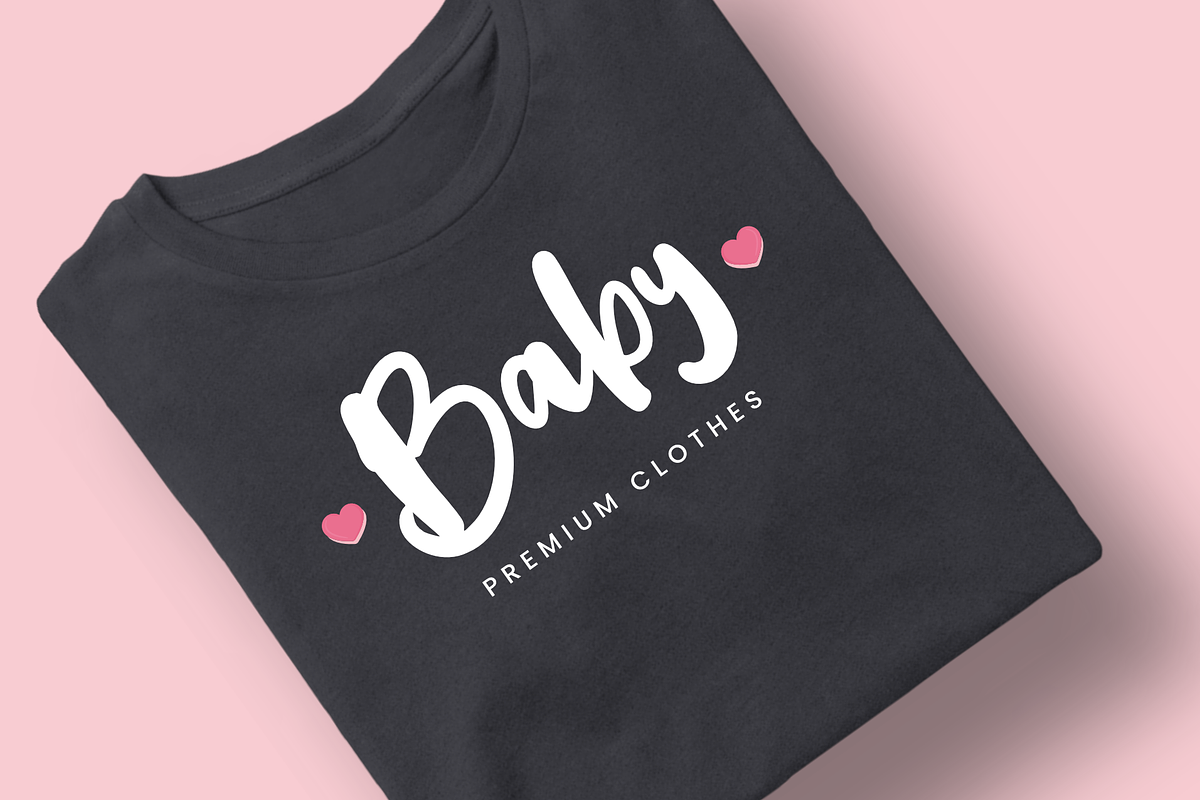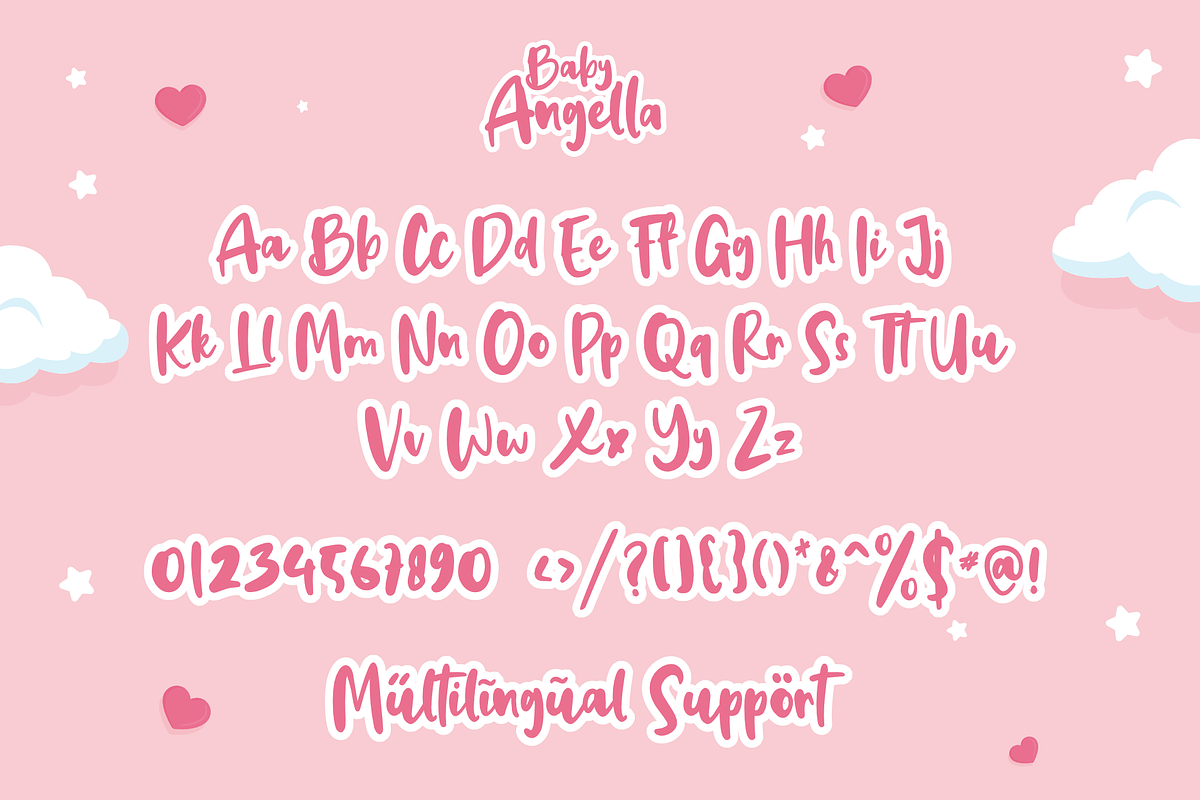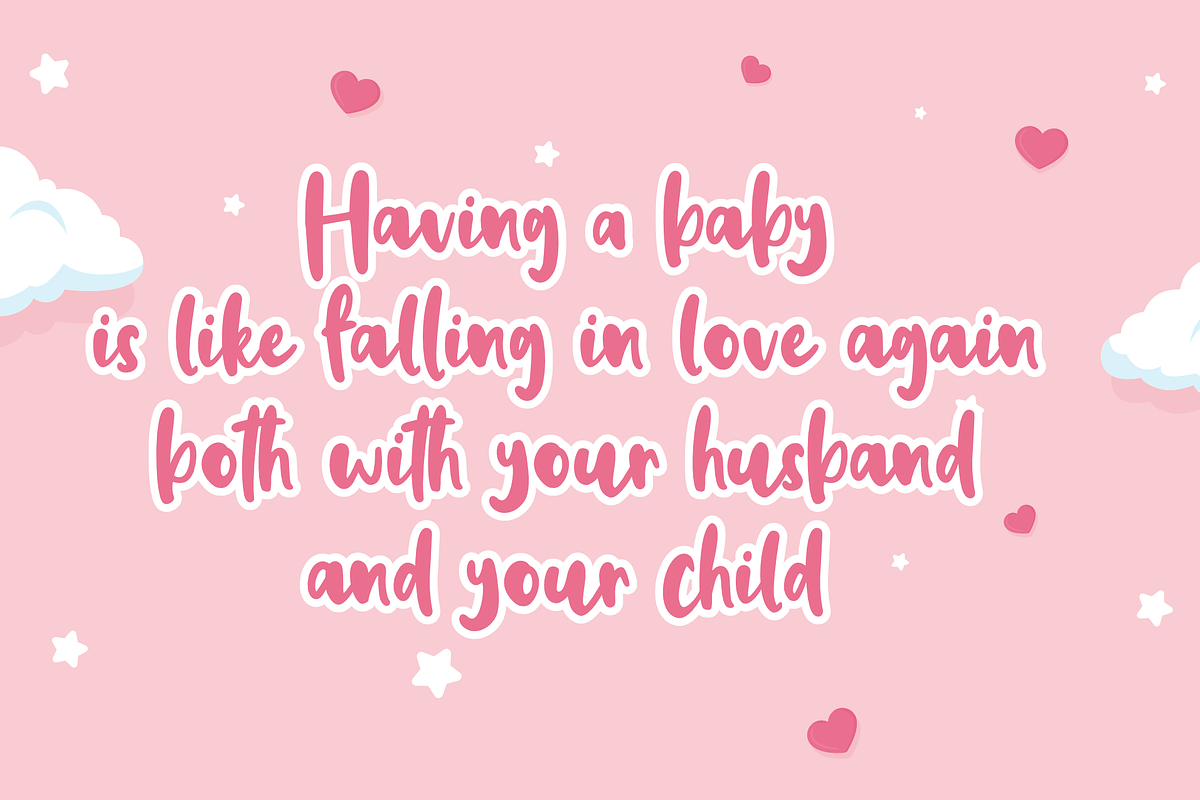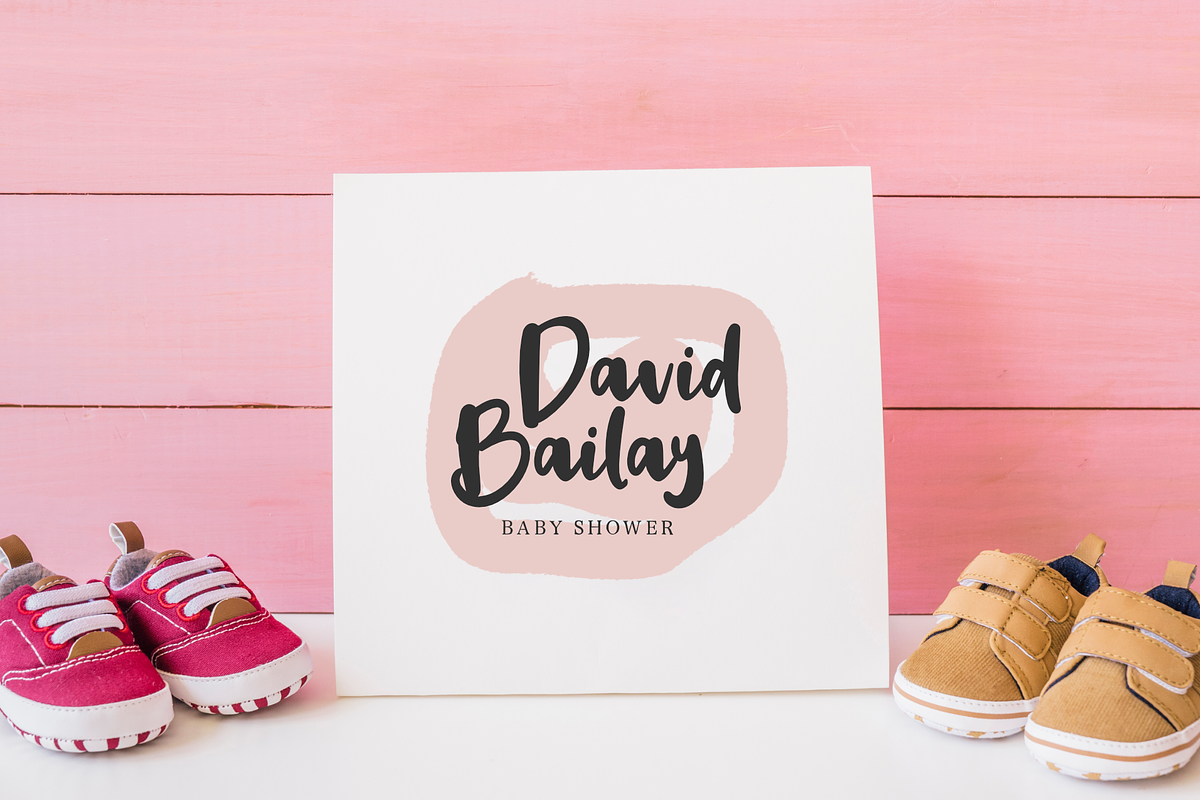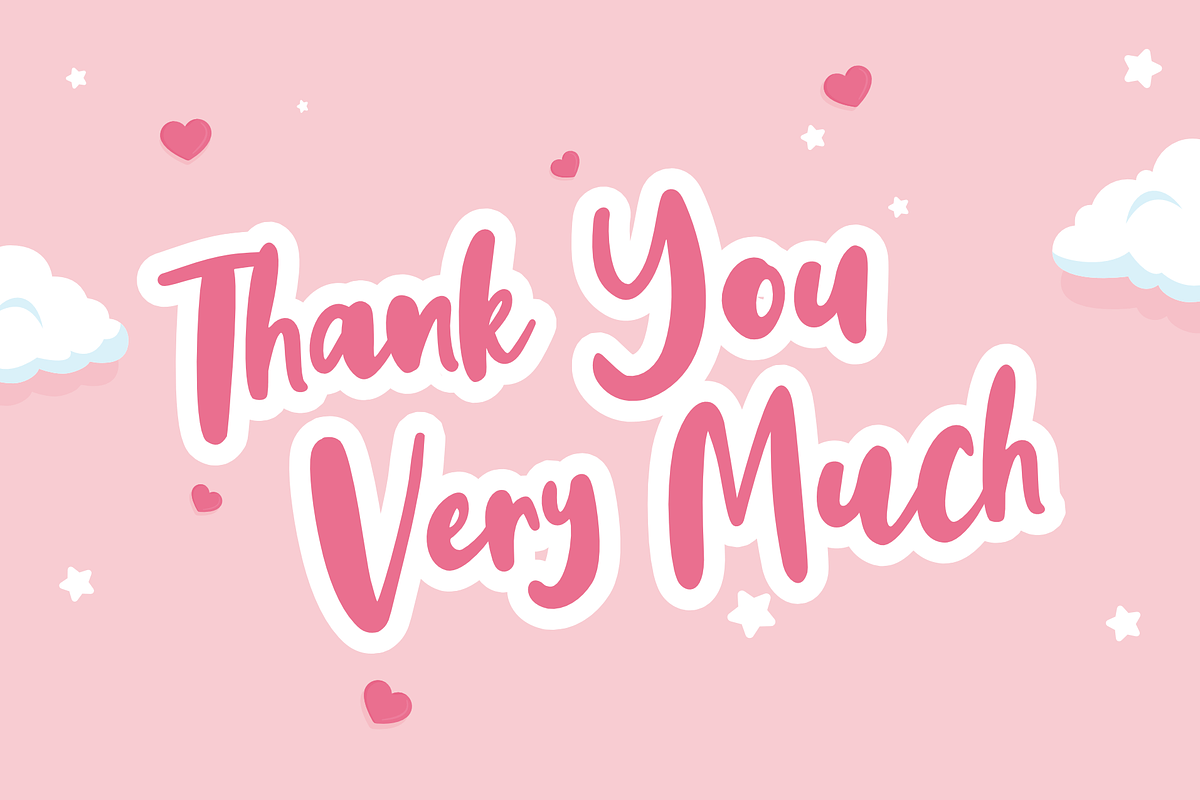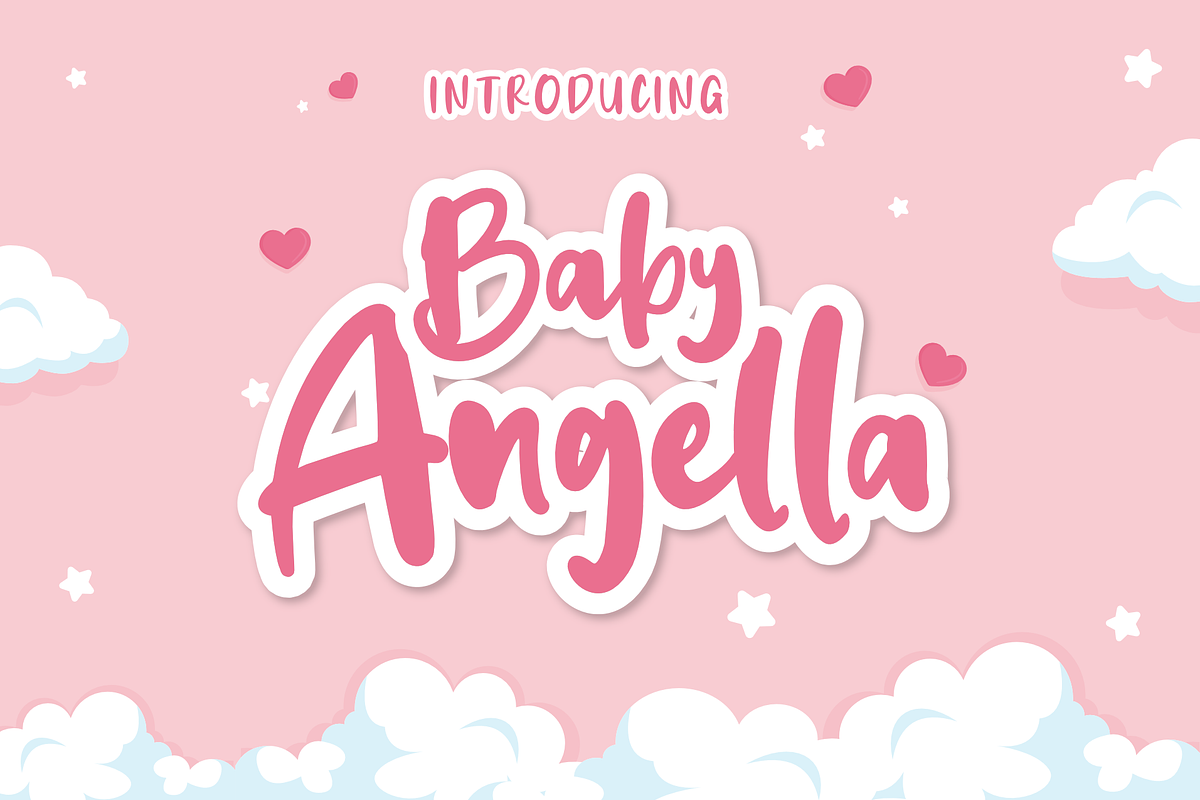
Baby Angella
Baby Angella is a cute and charming handwritten font. It will add an incredibly joyful touch to your designs. Add this beautiful handwritten font to your creative ideas and notice how it makes them stand out!